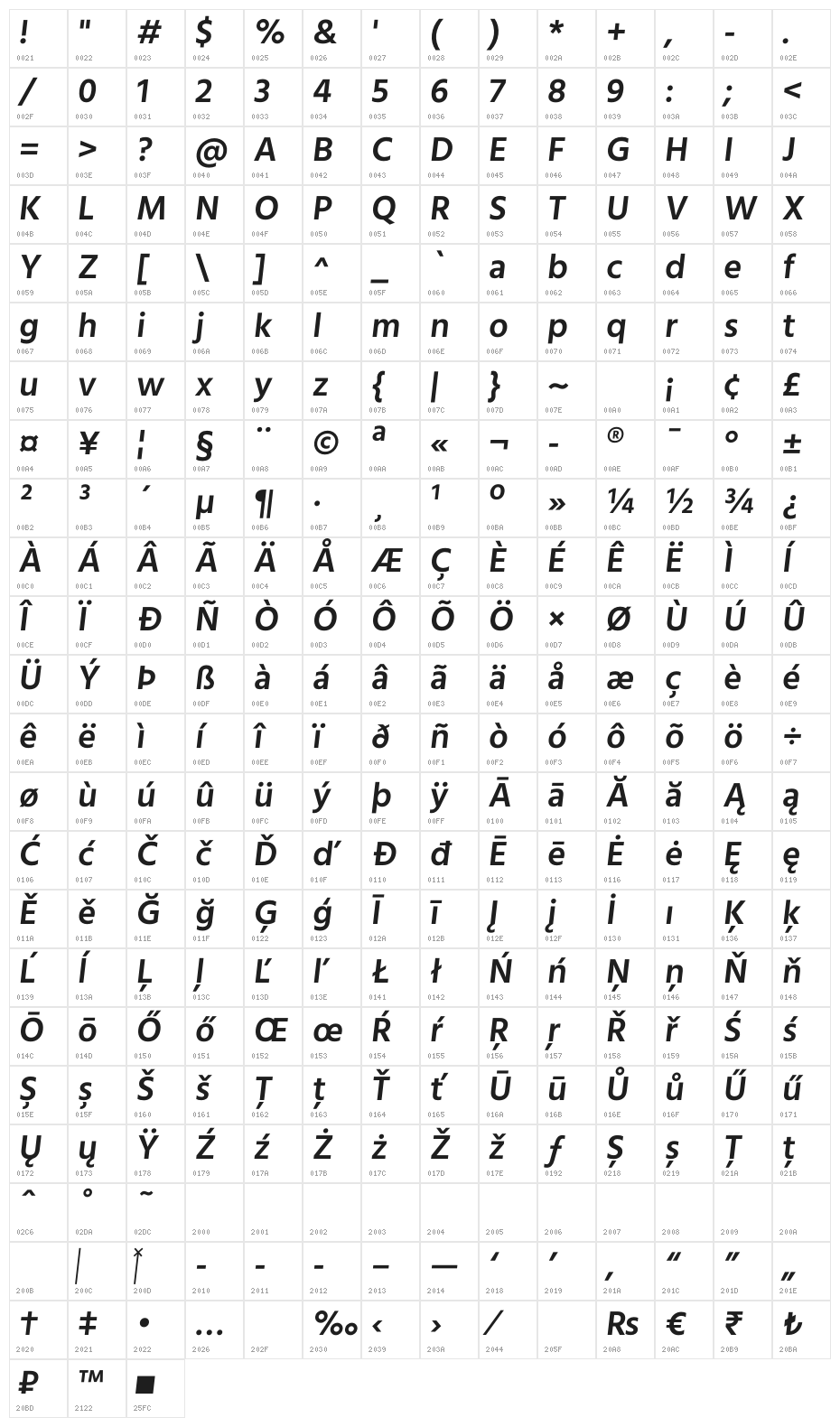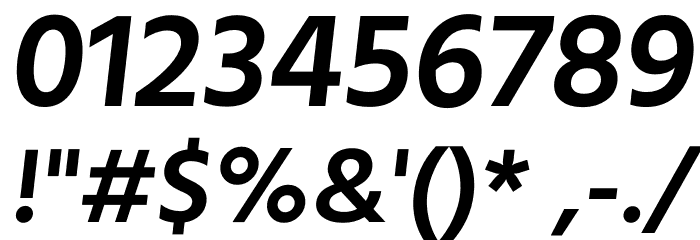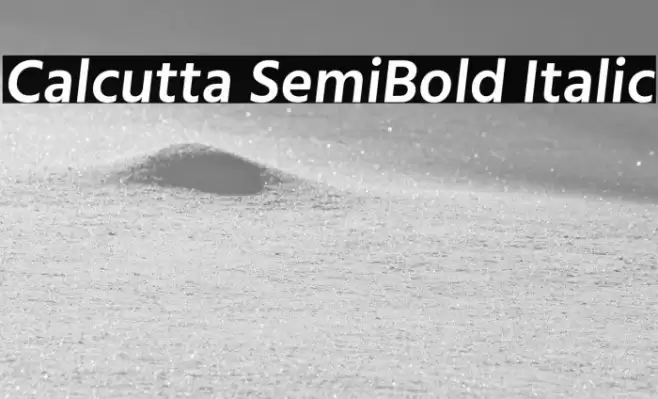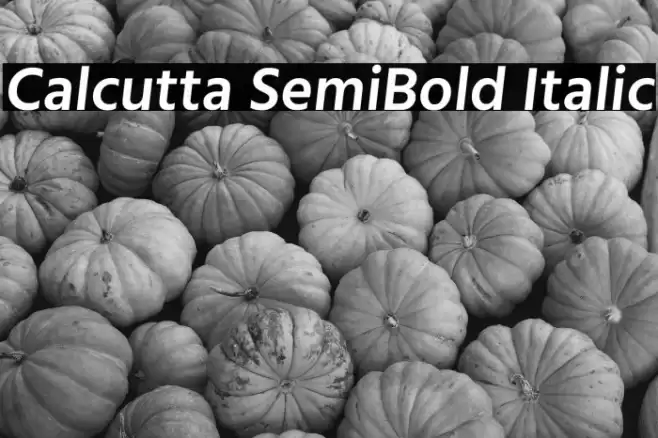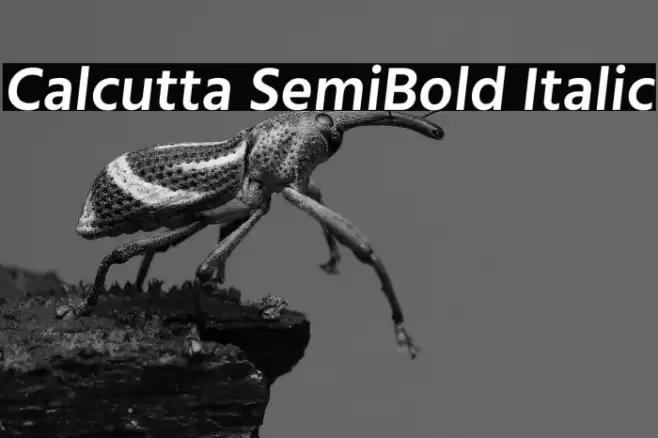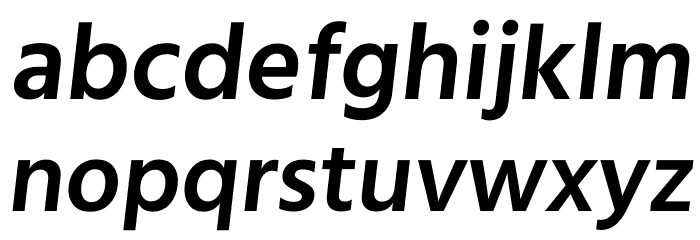
Calcutta SemiBold Italic Font
Calcutta SemiBold Italic Description
This font features a modern and sleek design with a semi-bold weight and italic style. The characters are slightly slanted, giving a dynamic and forward-moving appearance. The strokes are consistent, with medium contrast, providing a balanced look that is both professional and approachable. The uppercase and lowercase letters are well-proportioned, and the numerals are clear and easy to read. Special characters are included, maintaining the font's cohesive style. The overall design is versatile, suitable for various applications where a contemporary and stylish impression is desired.
| Use Case | Headlines, Body text, Logos |
| Proposed Projects | Ideal for branding, advertising, and editorial design projects that require a modern and stylish touch. |